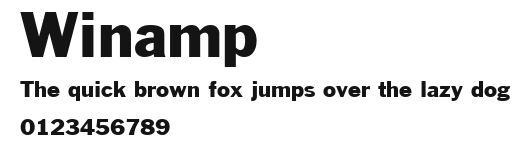
Winamp Preview
• Font Name: Winamp
• Font ID: TomPepper: Winamp: 1997
• Full Font Name: Winamp
• Version: Version 1.0; 1997; initial release
• PostScript Name: Winamp
• Character Count: 257
• Designer: Tom Pepper
About Winamp.ttf
Winamp.ttf is a modern, elegant sans-serif font designed for ultimate readability and visual harmony. Perfect for branding, headlines, web design, and print materials.